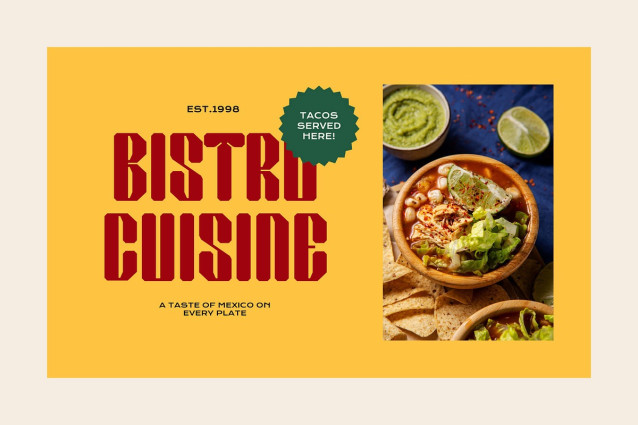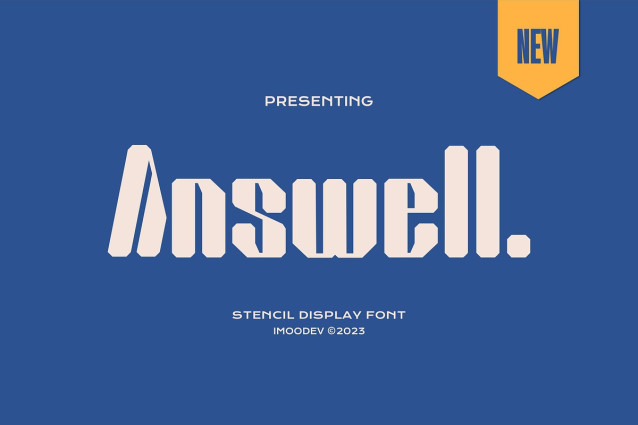
Answell Display Font
Answell Display Font is a bold, stencil display typeface. It has thick, blocky characters with rounded edges and distinct cutouts that give it a geometric and industrial look. This font are consistent in weight and have minimal contrast. This style is often used for bold headlines or designs requiring a rugged, vintage, or retro-futuristic feel.
Well-suited for branding, posters, or logos where a mix of traditional stencil aesthetics and modern design is desired. The alternates allow designers to customize text and create a more unique visual style.